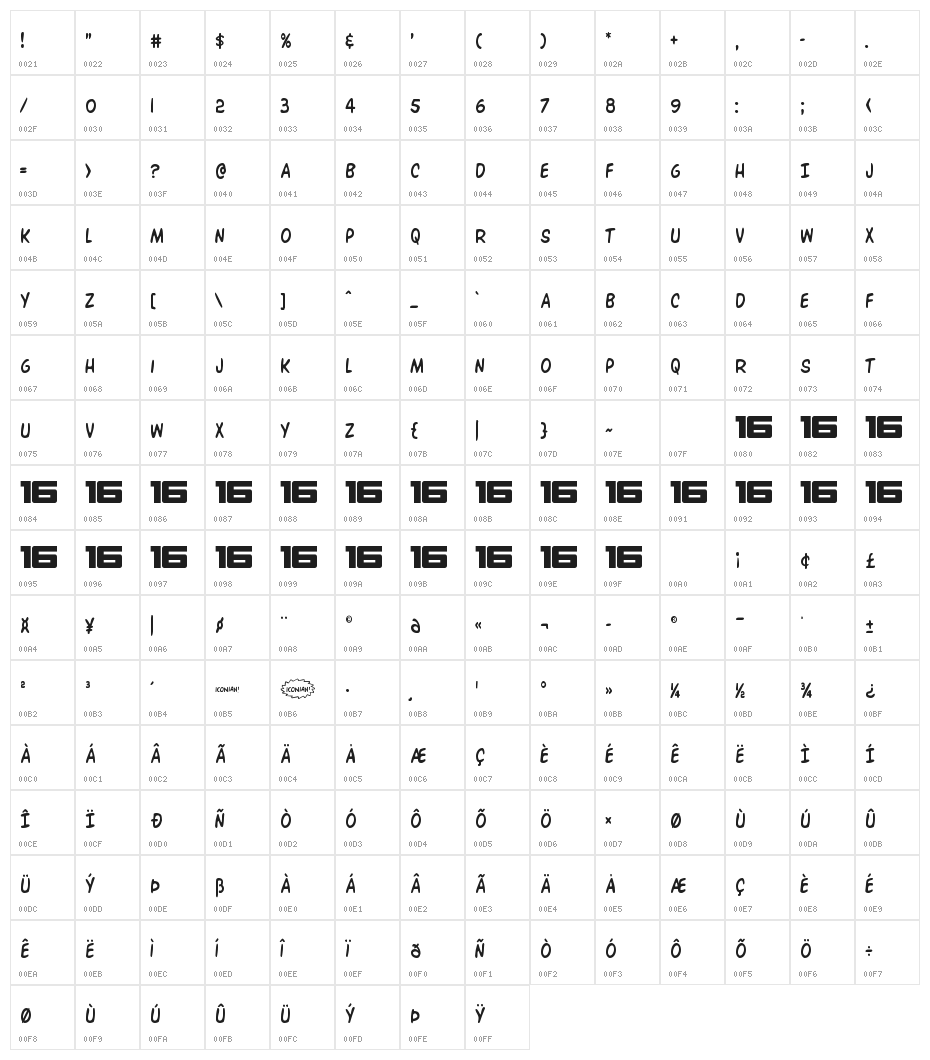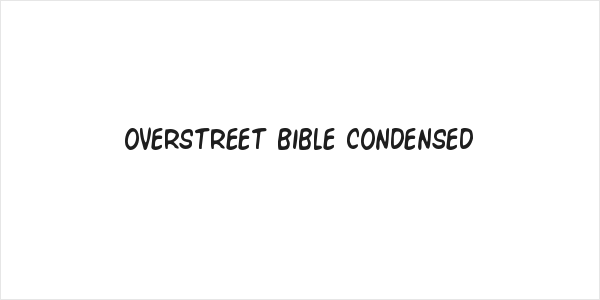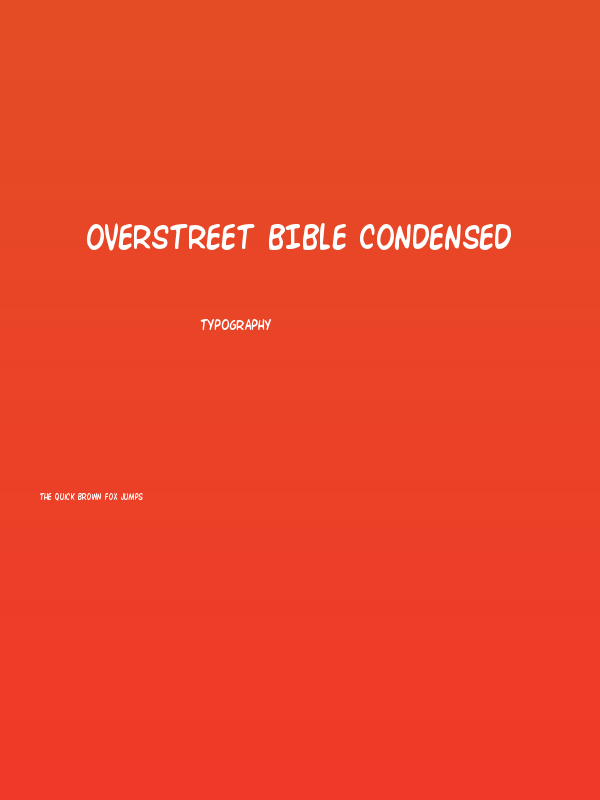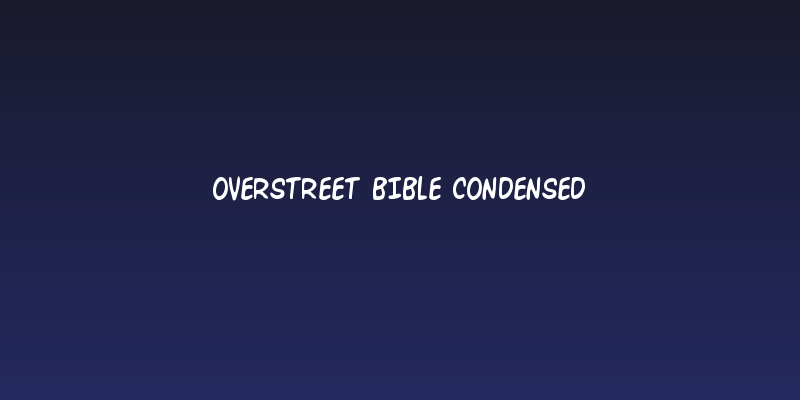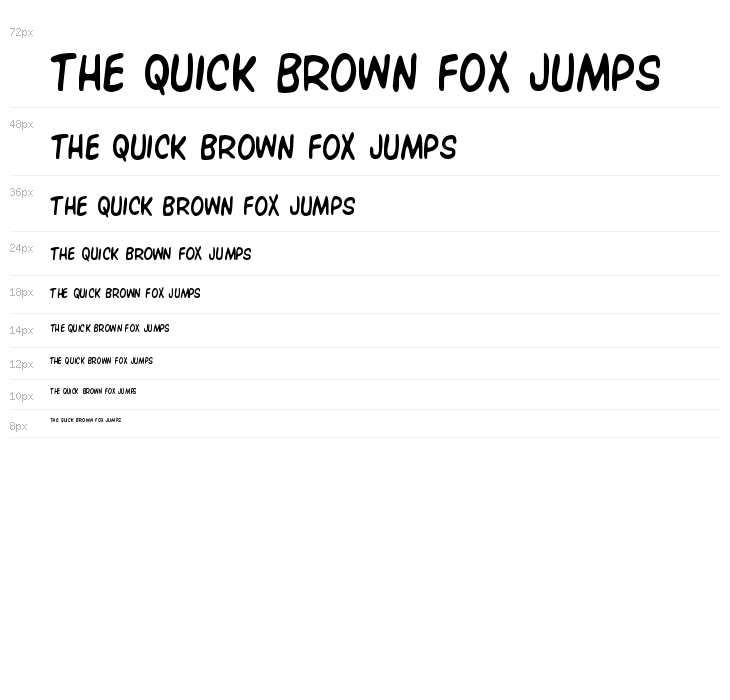
Overstreet Bible Condensed Font
Overstreet Bible Condensed Description
This font features a playful and informal style with rounded edges and a slightly condensed form. The characters are bold and have a consistent stroke width, giving them a uniform appearance. The uppercase and lowercase letters maintain a cohesive look, with a slight slant that adds to the casual feel. The numerals are clear and easy to read, matching the overall aesthetic of the alphabet. Special characters are well-integrated, maintaining the same playful style. This font is suitable for projects that require a friendly and approachable tone.
| Proposed Projects | Ideal for children's books, casual branding, playful posters, and social media graphics. |